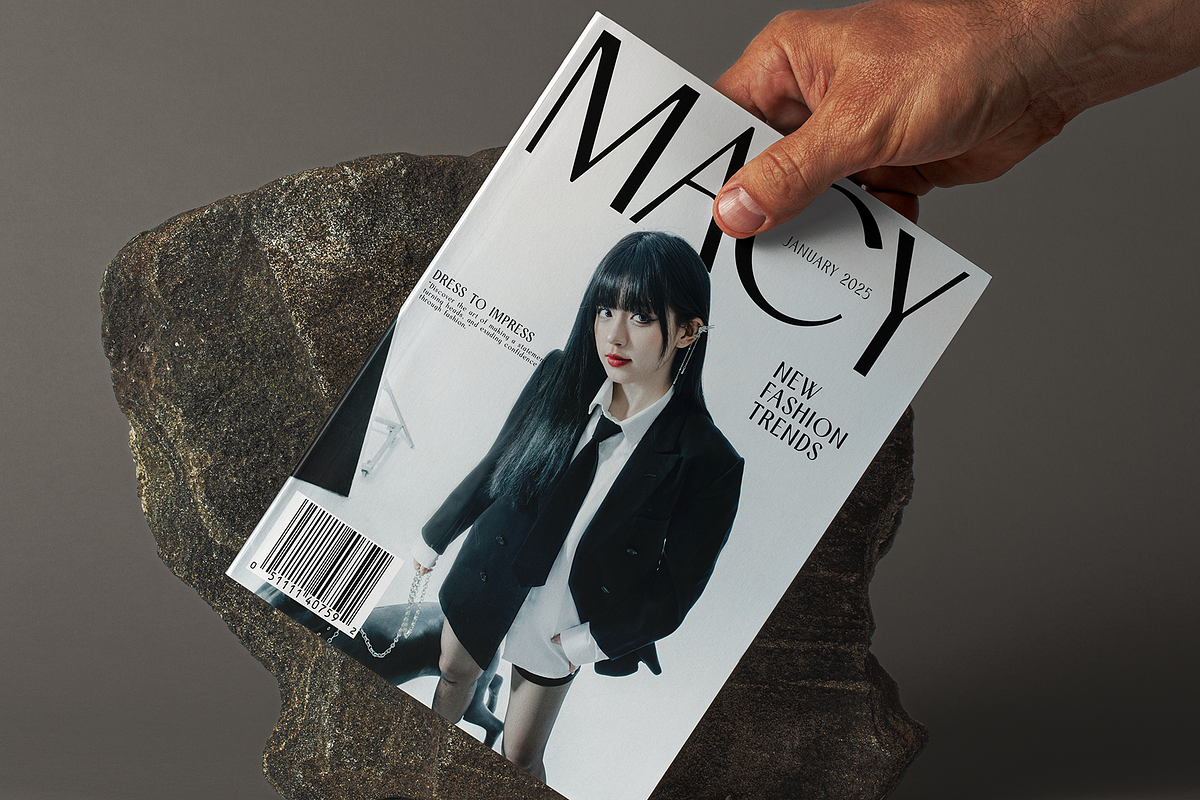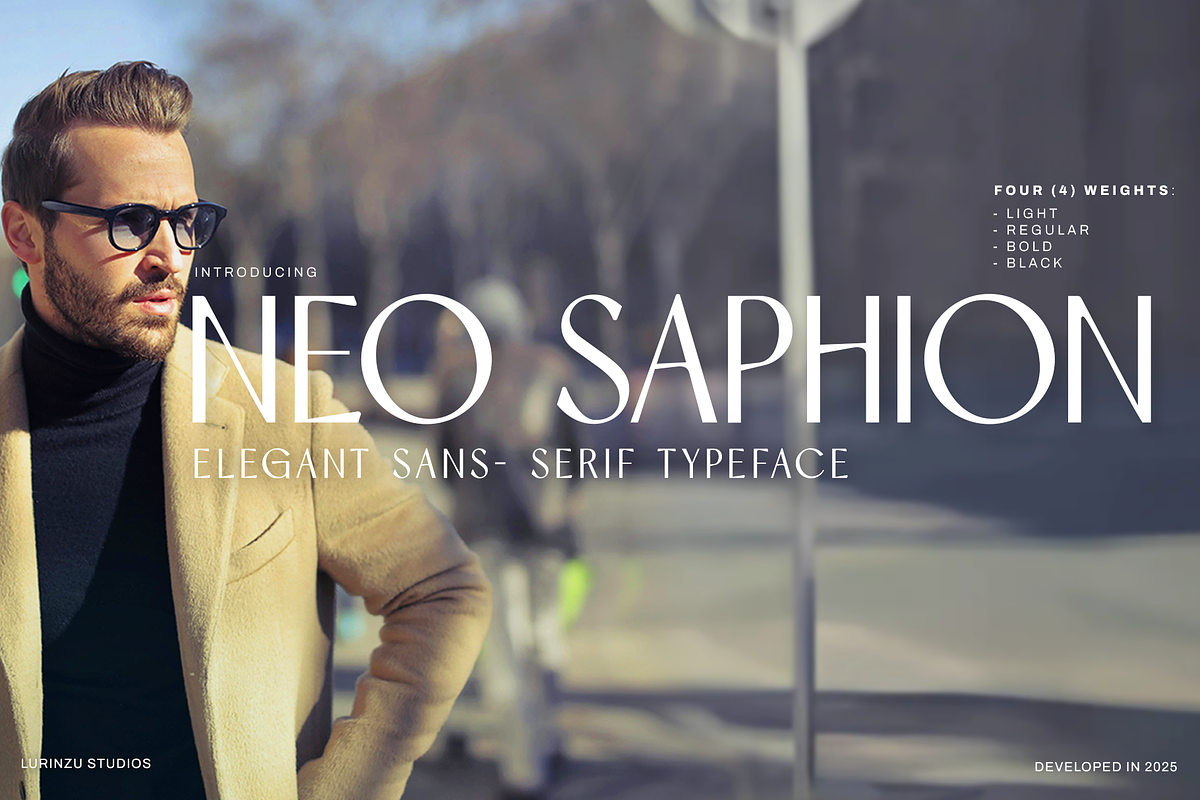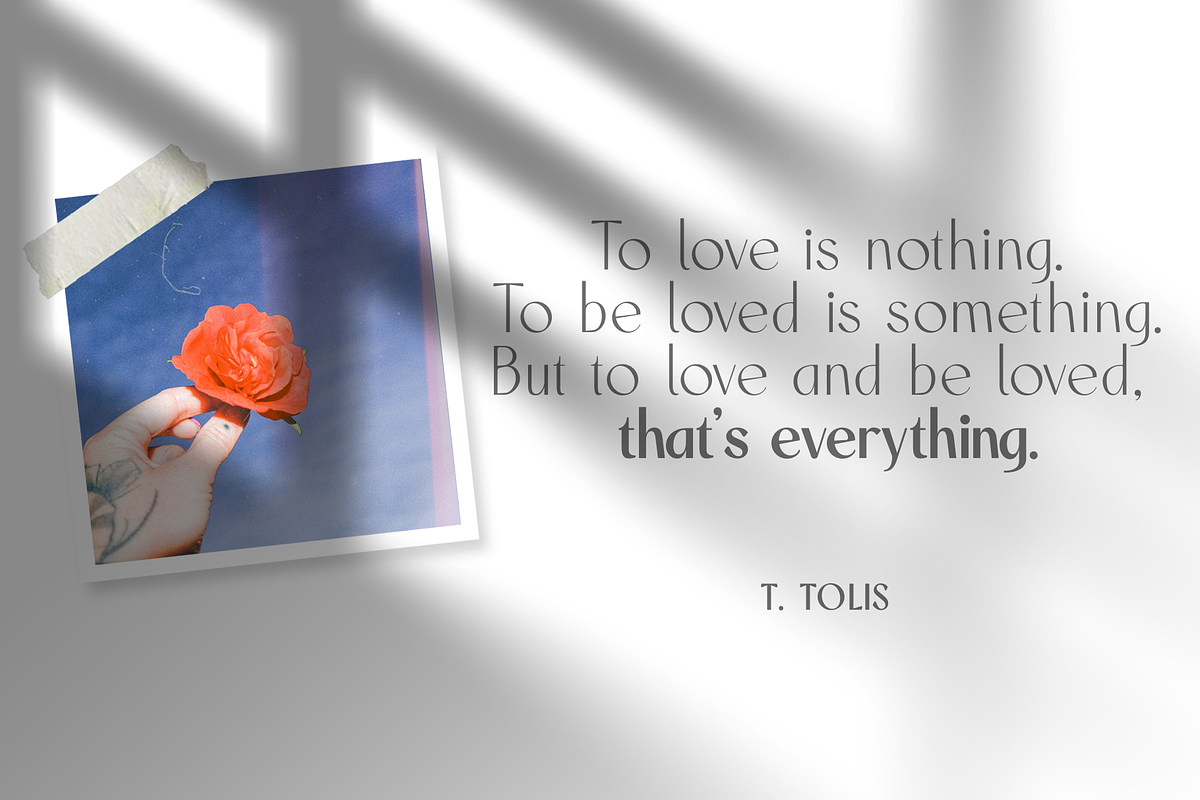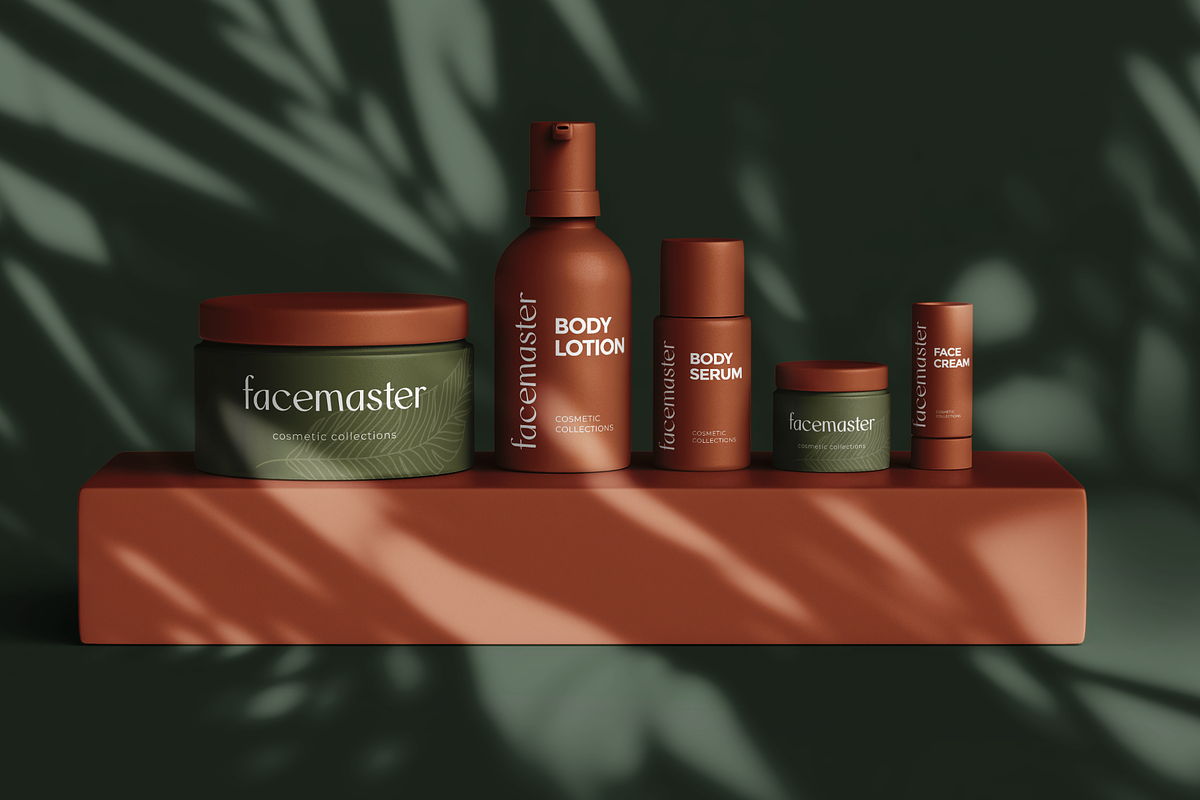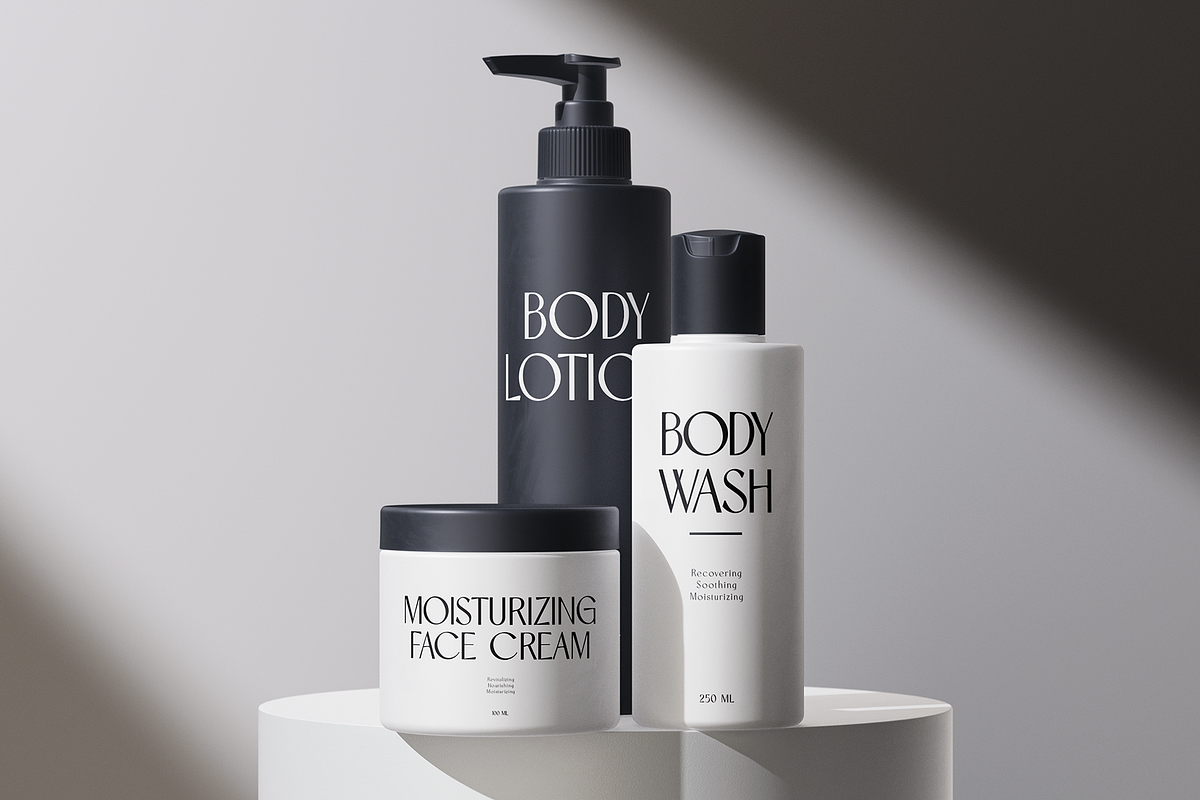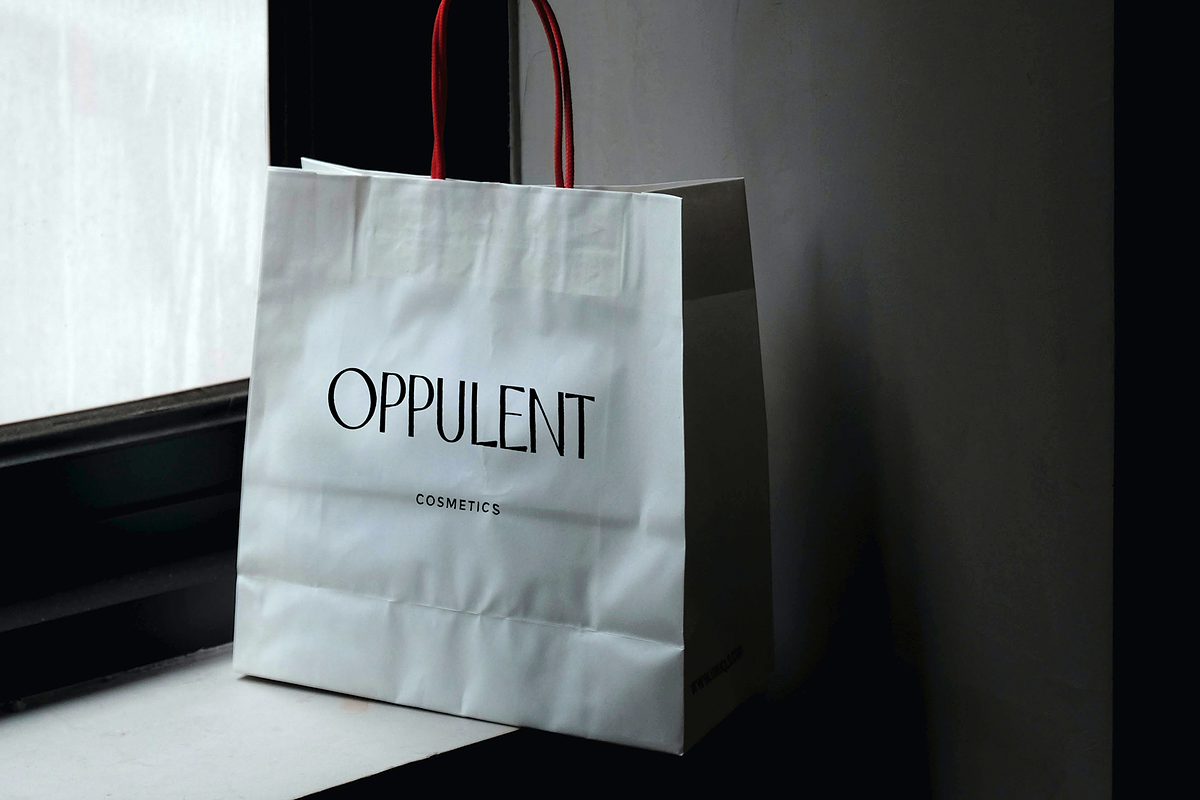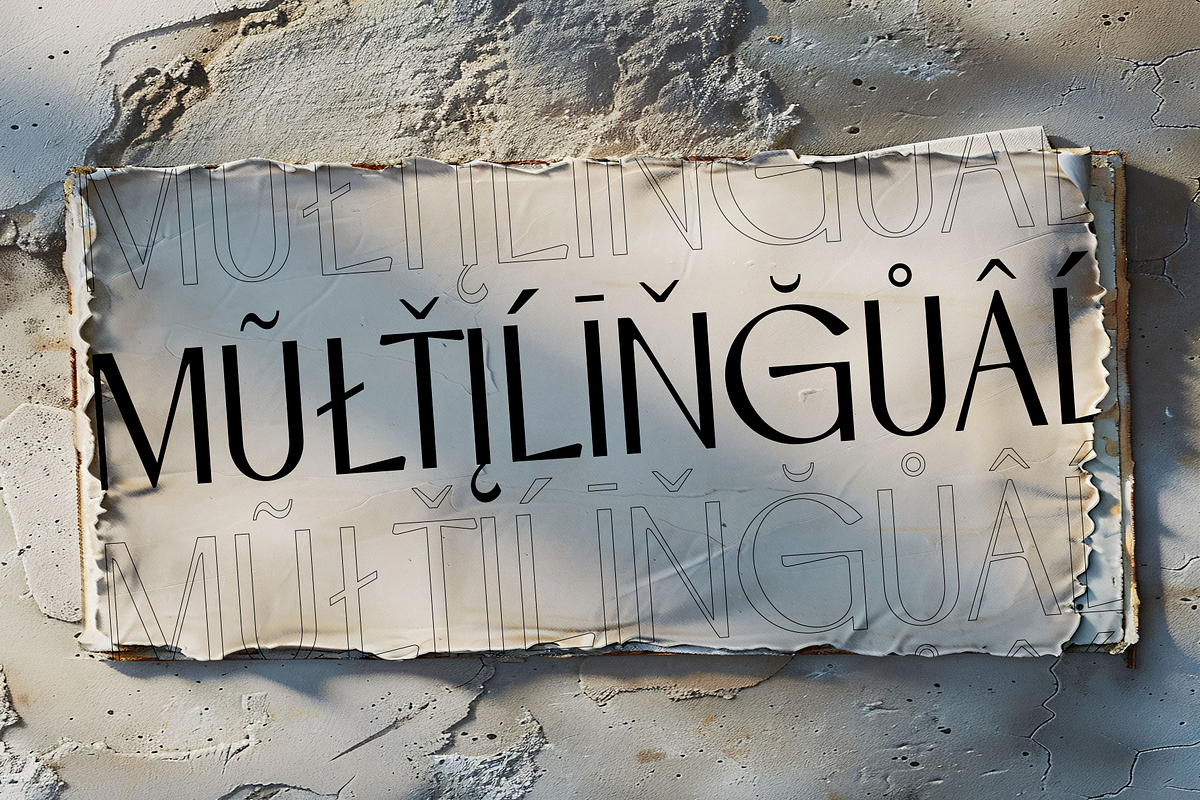
Neo Saphion- Elegant Typeface
Neo Saphion is an elegant sans serif typeface that inspired by various vintage typefaces
- Legibility: The font is designed to be easy to read
- Style: The font is elegant and modern, with a nod to vintage typography
- Functionality: The font can be used for branding, logos, weddings, fashion, and other designs
*This font works well with neutral fonts like Montserrat, Gotham, Volte, Nunito sans, etc.
- This font includes letters, numbers, multilanguage support and marks. *The full font includes all weights, letters, numbers, multilanguage support, and all essential marks needed.